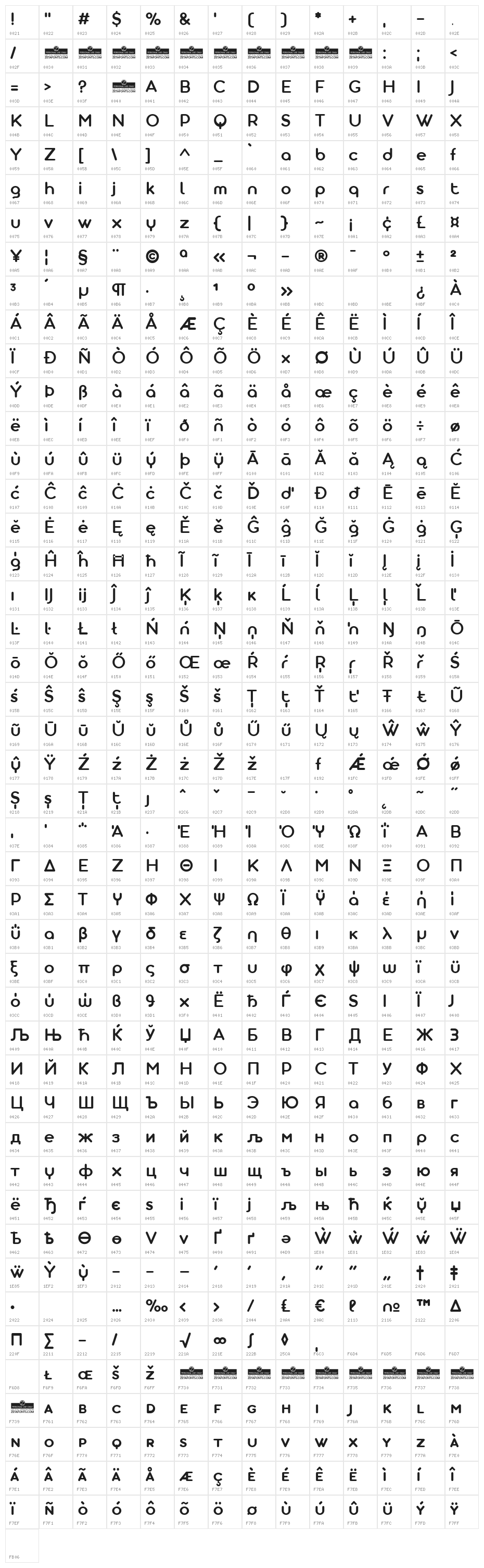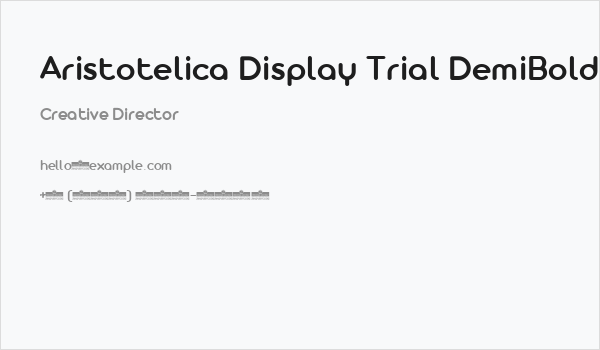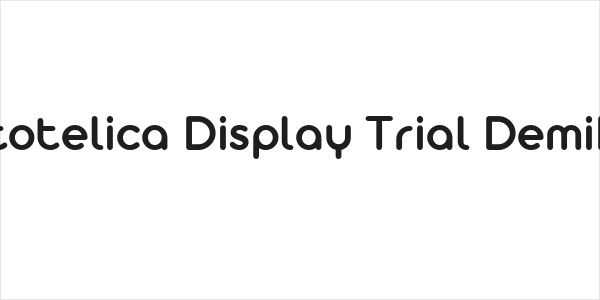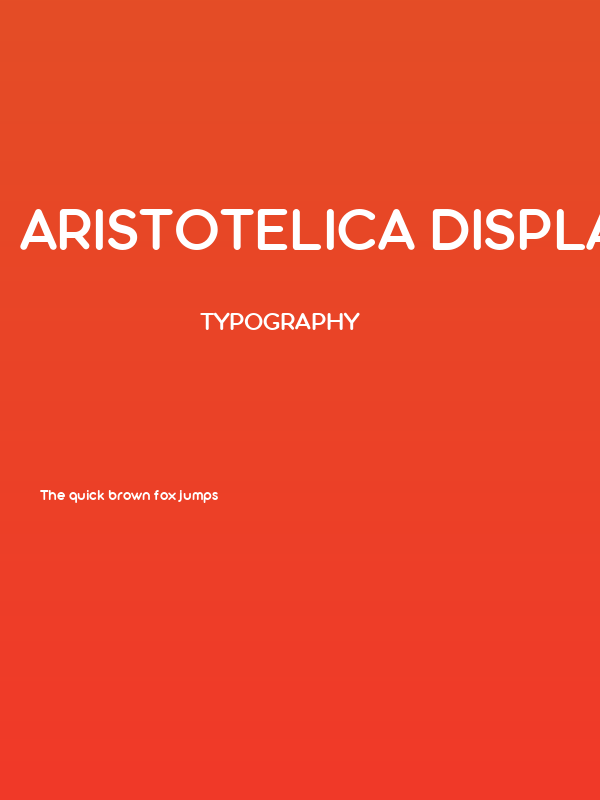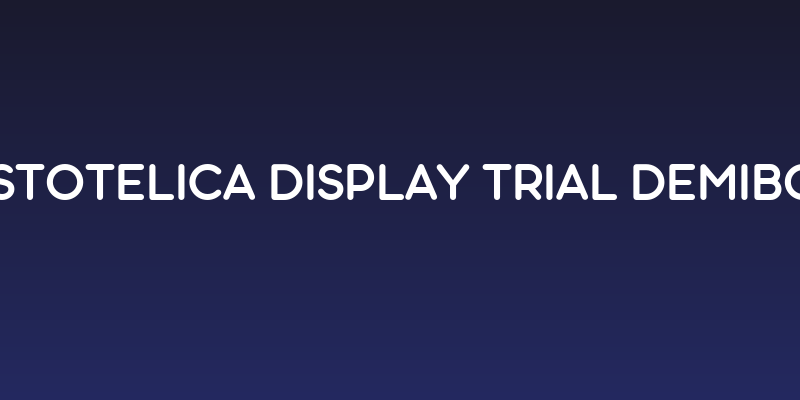
Aristotelica Display Trial DemiBold Font
Aristotelica Display Trial DemiBold Description
This font features a clean, rounded sans-serif style with a modern and approachable aesthetic. The characters are evenly weighted, providing a balanced and harmonious appearance. The rounded edges give it a friendly and inviting look, making it suitable for a variety of design projects. The uppercase and lowercase letters maintain a consistent style, with smooth curves and a uniform stroke width. The numerals and special characters are designed to complement the overall style, ensuring readability and visual appeal.
| Proposed Projects | Ideal for branding, advertising, packaging, and digital media where a modern and approachable look is desired. |